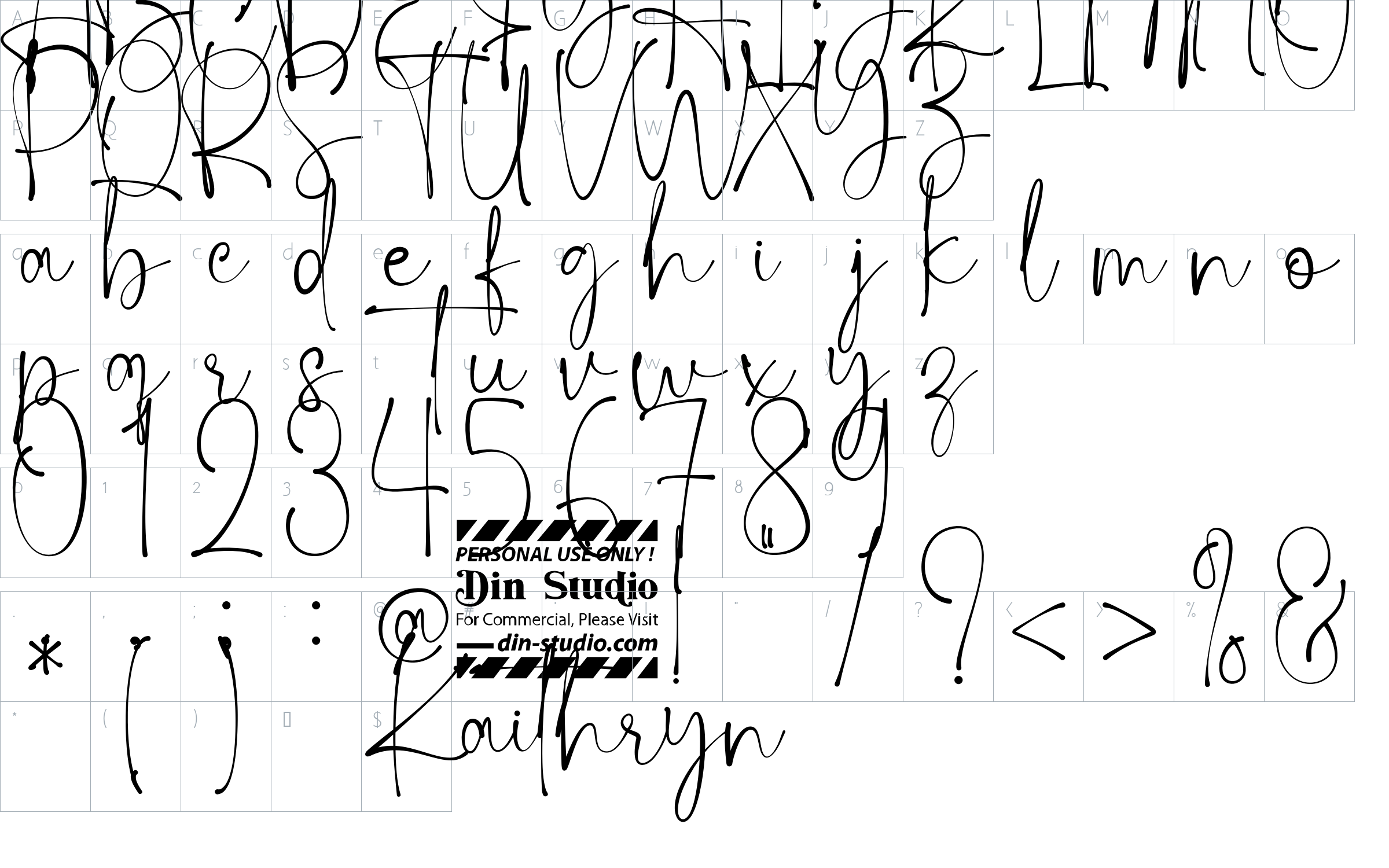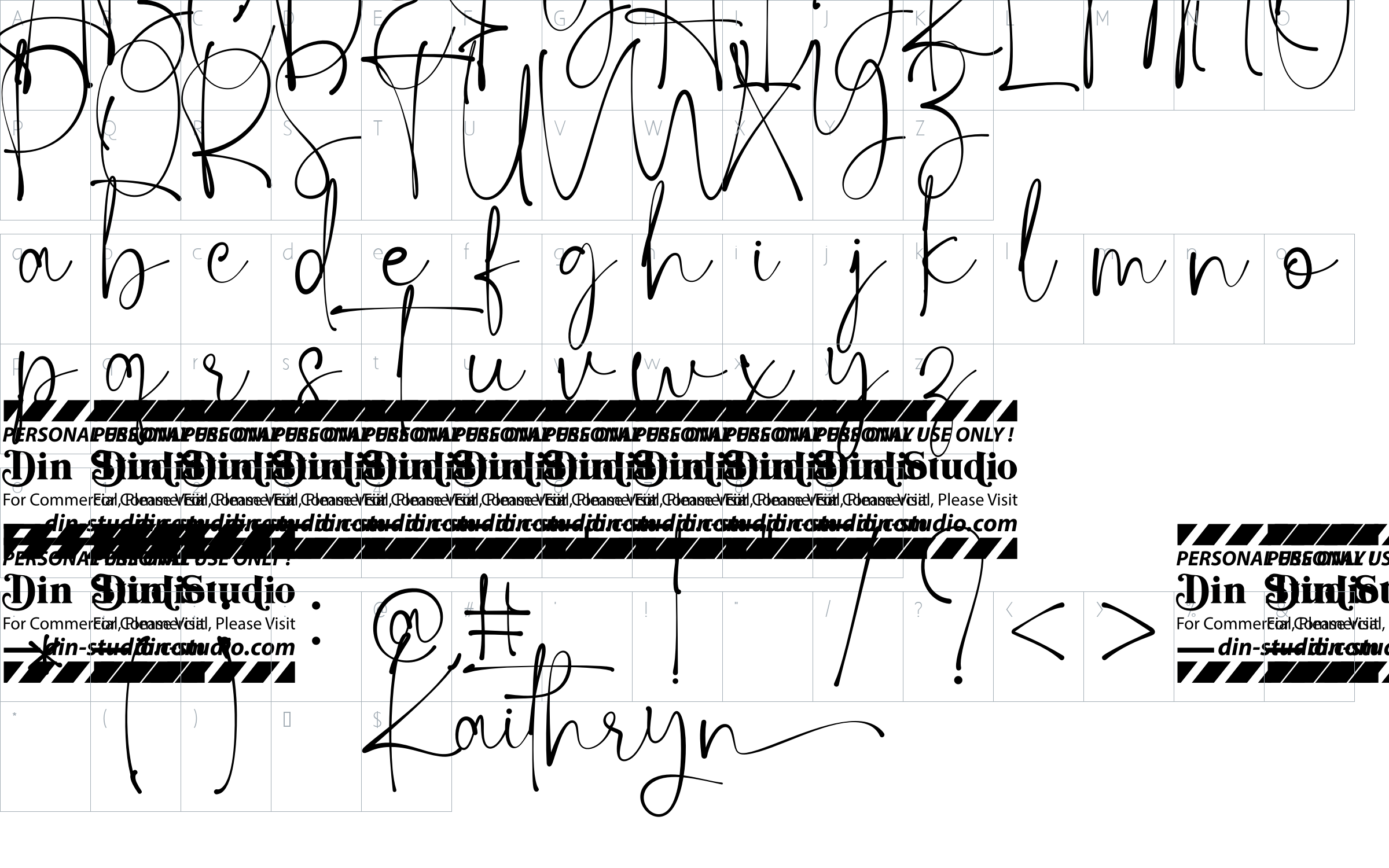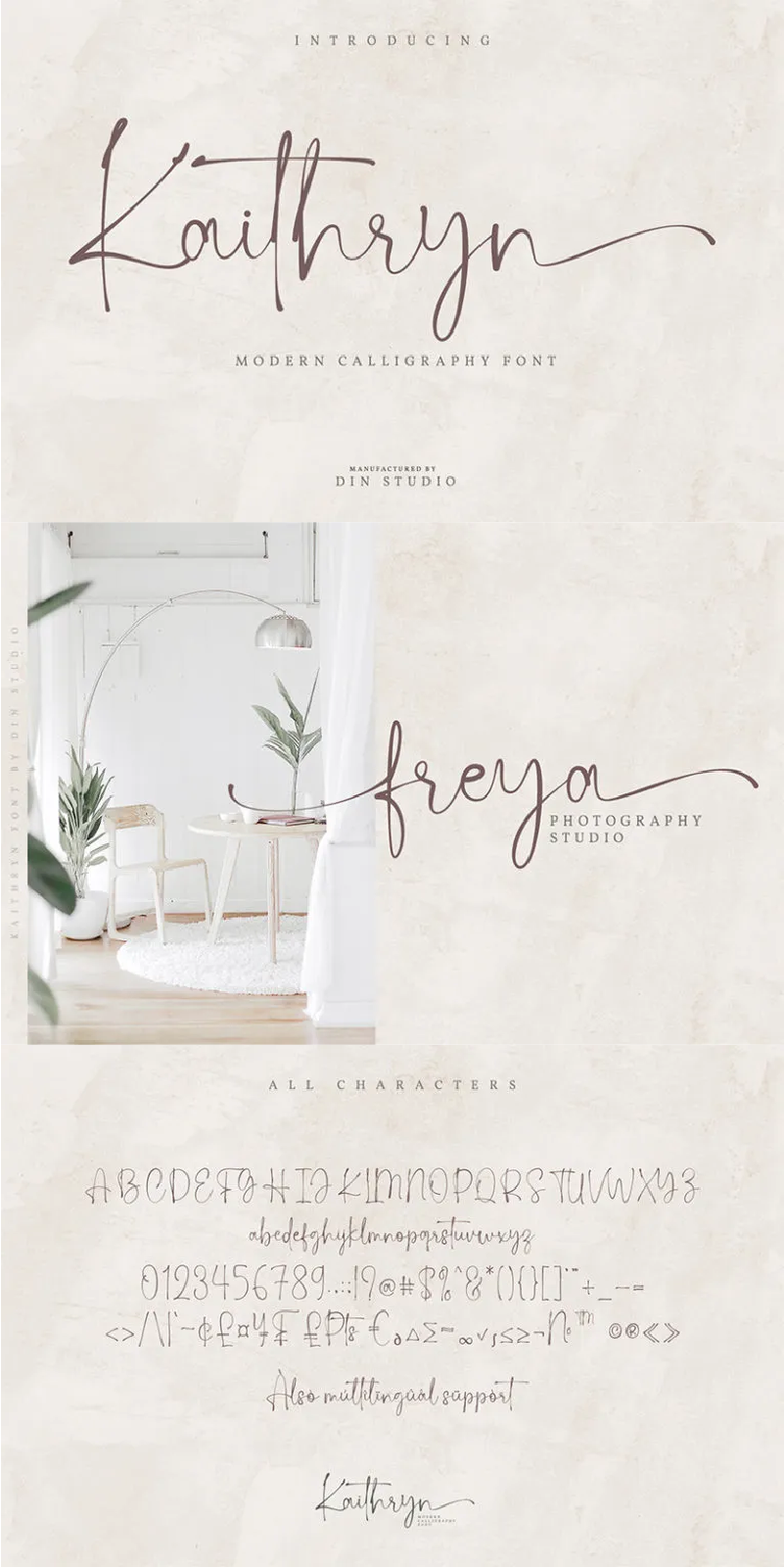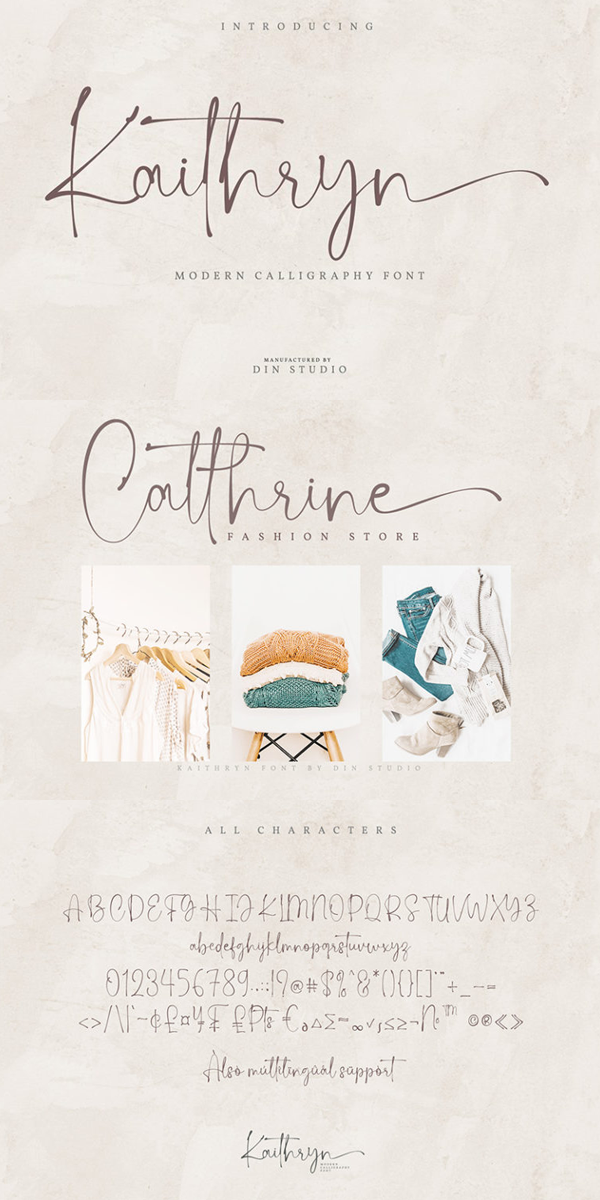
Kaithryn Font
About Kaithryn
Kaithryn giving you a beautifully attractive typeface. The font has an authentic modern calligraphic look making it perfect for branding and digital designs. See the previews above to get some inspiration on how you can use them. Happy designing!